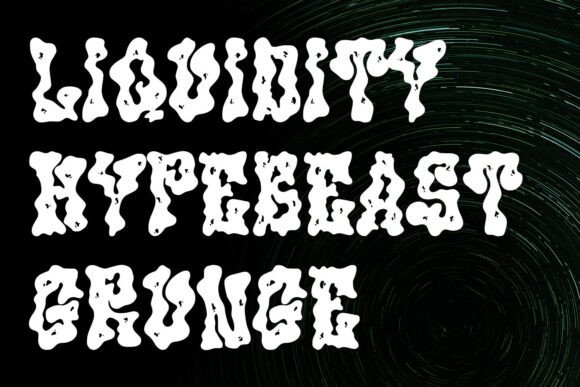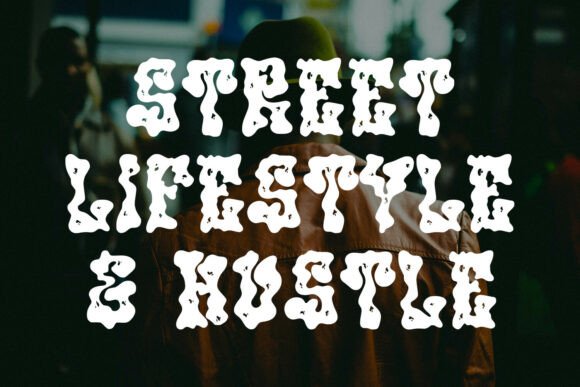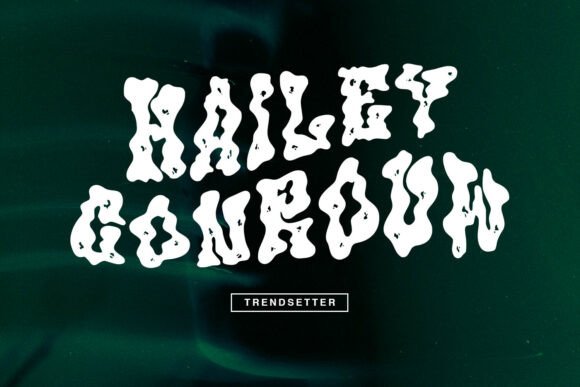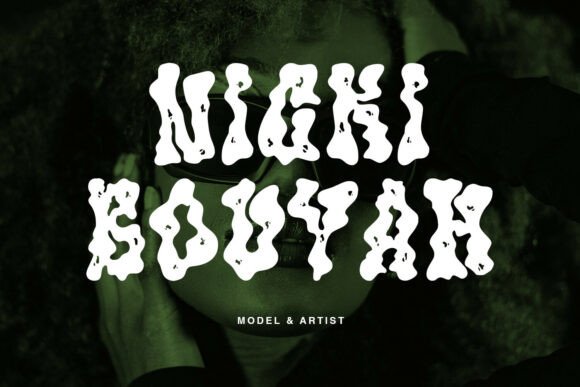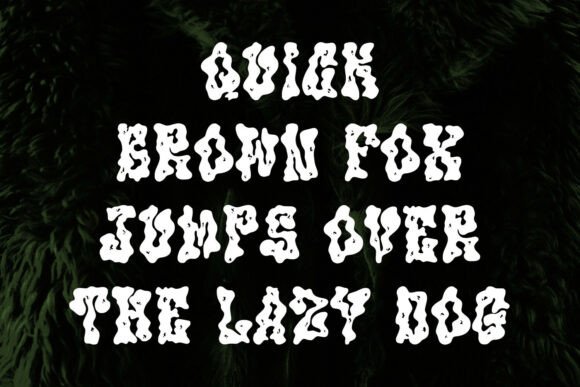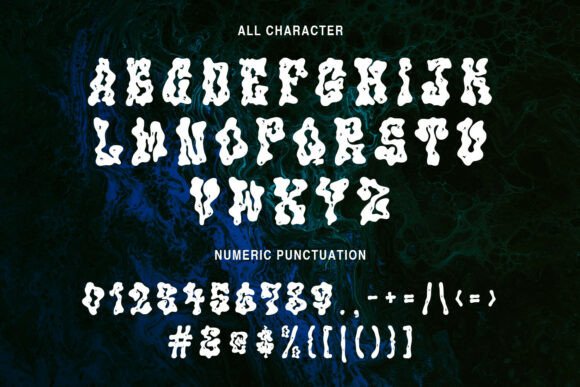
The Birth of a Bold Design
You know that moment when inspiration strikes, and you feel the urge to create something truly unique? For designers, this moment is a thrill unlike any other. It’s the spark that ignites a passion project, a daring concept that refuses to be ignored. For those who crave this kind of creative freedom, a new font has emerged to shake things up – Glayouzz Font.
This bold and experimental typeface is not for the faint of heart. Its fluid, organic shapes and striking textures command attention, making it the perfect choice for projects that aim to stand out. With its irregular letterforms and high-contrast strokes, Glayouzz Font is ideal for edgy posters, album covers, and daring branding.
For designers, Glayouzz Font offers a world of creative possibilities. Its unique personality and versatility ensure that every design makes a bold, unforgettable statement. Whether you’re looking to make a splash in the art world or simply want to add some excitement to your next project, Glayouzz Font is the perfect tool for the job.
Glayouzz Font Key Features
- Font Family: Glayouzz Font is a unique, hand-drawn typeface designed to evoke a sense of playfulness and whimsy.
- Character Set: Includes a comprehensive character set, covering Latin, Cyrillic, and Greek alphabets, as well as various punctuation and symbol marks.
- Unique Characteristics: Glayouzz Font features a distinctive, hand-crafted aesthetic, with subtle irregularities and imperfections that add to its charm.
Glayouzz Font Review
Glayouzz Font is an interesting addition to the world of typography, but its effectiveness ultimately depends on how you plan to use it.
- Unique aesthetic: Glayouzz Font offers a distinctive, hand-drawn feel that can add a touch of personality to your designs.
- High contrast: The font’s bold lines and subtle texture create a nice visual contrast that can help draw attention to key elements.
- Flexibility: Glayouzz Font comes in multiple weights and styles, making it suitable for a range of design applications.
- Readability: While Glayouzz Font is visually striking, its readability can be a concern, especially for large blocks of text.
- Lack of consistency: The font’s handmade quality can sometimes result in inconsistent spacing and letterforms.
Overall, Glayouzz Font is a solid choice for designers looking to add some visual flair to their projects. However, it may not be the best fit for complex, lengthy texts or applications where readability is a top priority. Use it wisely, and you’ll find it can be a valuable asset in your design toolkit.
Glayouzz Font Practical Application Guide
For best results, use the Glayouzz font in titles, headings, and quotes to add a touch of elegance to your designs. Avoid using it for large blocks of text, as it can be difficult to read.
Common use cases include:
- Branding and logo design
- Quote graphics and social media posts
Q: What is the character set and language support for Glayouzz Font?
Glayouzz Font includes a comprehensive character set, covering Latin, Cyrillic, and Greek alphabets, as well as various symbols and punctuation marks. The font also supports multiple languages, including English, Spanish, French, German, Italian, Portuguese, Dutch, Russian, and many others. However, please note that some languages may require additional font features or installations.